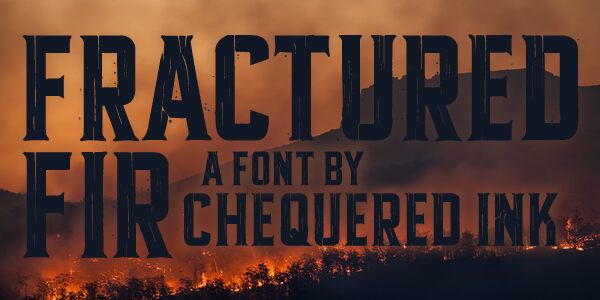
Fractured Fir
Fractured Fir by Chequered Ink is a striking display font that exudes a sense of weathered resilience. Its irregular, eroded letterforms evoke the rugged charm of an ancient, fractured wooden sign. The condensed width lends an air of boldness, while the overall aesthetic suggests a bygone era of industrial grit and character. This font's alluring combination of visual interest and vintage-inspired charm makes it a captivating choice for designers seeking to capture a distinct, weathered ambiance.
Fractured Fir's unique characteristics make it a versatile option for a range of design applications. Its eye-catching presence lends itself well to attention-grabbing headlines, impactful branding, or gritty, industrial-themed projects. The font's bold, condensed nature also allows for effective use in product packaging, book covers, and other design elements where strong visual impact is desired.